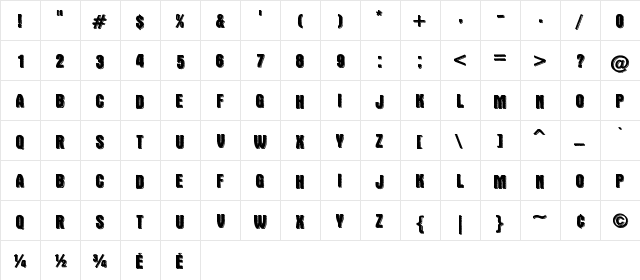
Double Slug Regular
| Designer | S. John Ross |
Design Context for Double Slug Typeface
Double Slug takes a measured approach to typography — its balanced proportions and neutral character make it a reliable workhorse for both digital and print work.